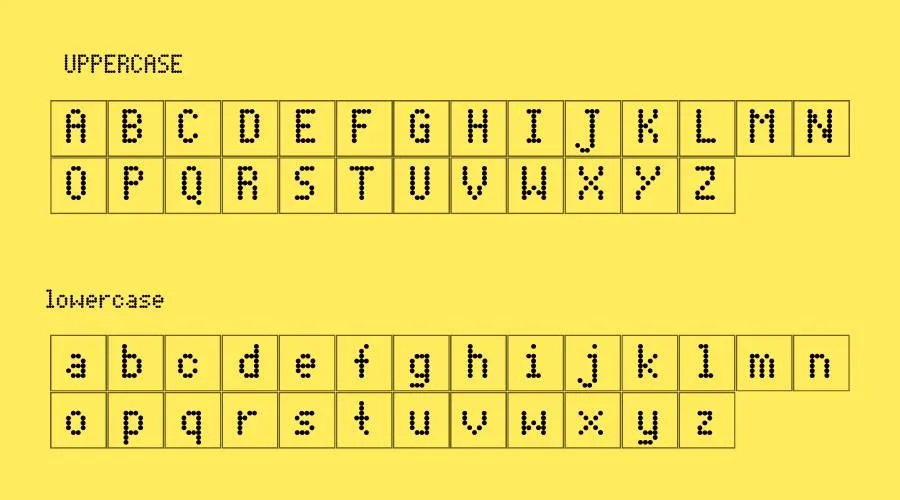
Dot Matrix Font
About Dot Matrix Font
The Dot Matrix Font was designed by Swiss-type creators Moonbase Press and Cornel Windlin and boosted by the typographic grid design on a digital roadside news board. This font is under the category of the techno typeface family and has elegant and stylish characters of an alphabet set.
The glyph of this amazing font has been created to be very individual, which makes it suitable for headlines and other display purposes. However, the high contrast of the glyphs can make it difficult to read at small sizes. It is available in both file formats TrueType and OpenType.